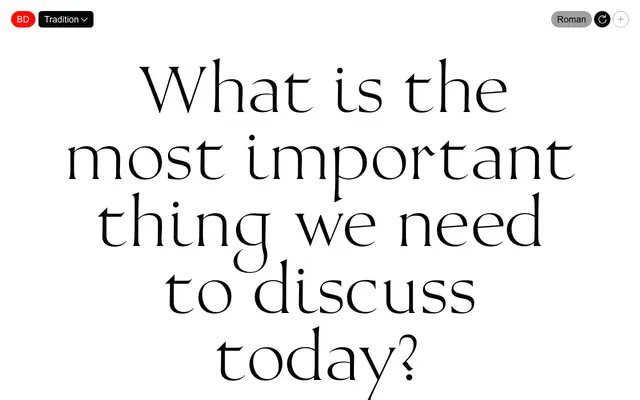
Tradition
A roman serif from Bold Decisions with minimal published detail beyond its classification as Roman.
Listed under the name Tradition, this typeface is described only as Roman on the Bold Decisions catalogue page, leaving weight range, language support and year of release undocumented. The name suggests a classical or historically informed approach to roman letter forms. Without further specimen or copy, specific design intent and intended use cases remain unclear.
The page labels the typeface simply as 'Roman', indicating a classical serif design in the roman tradition, though insufficient detail is available to specify further.